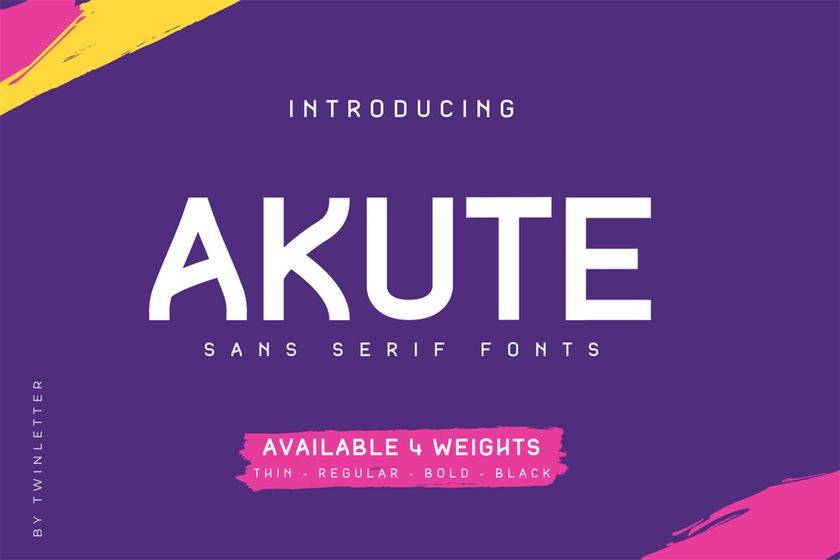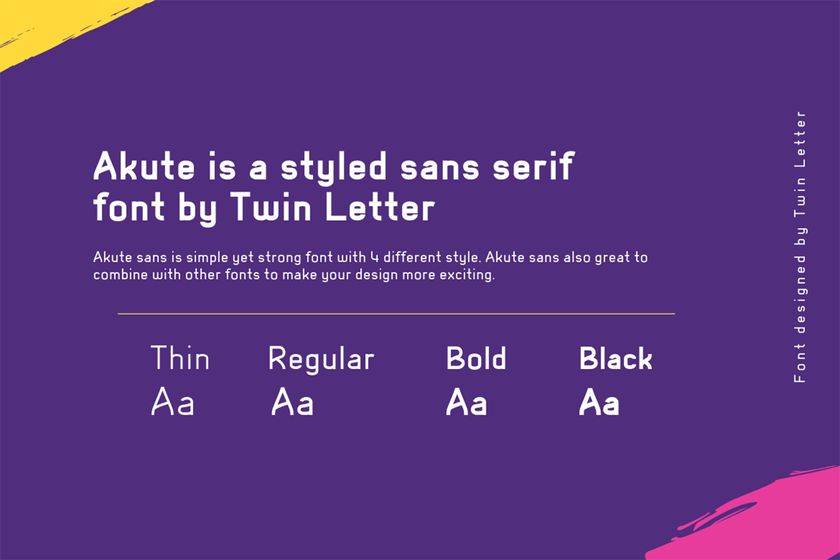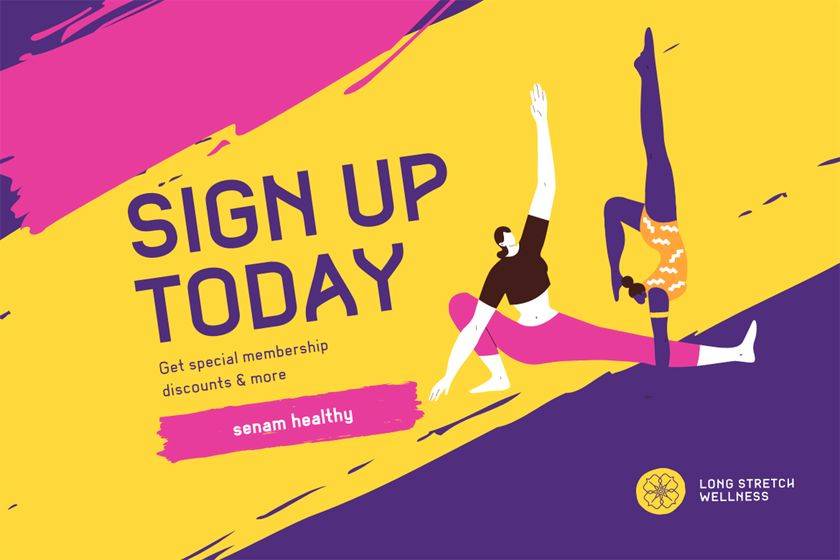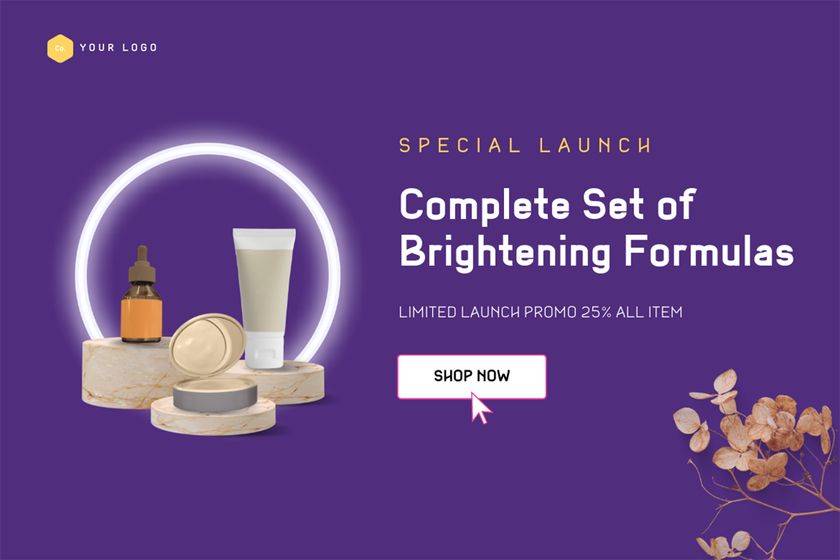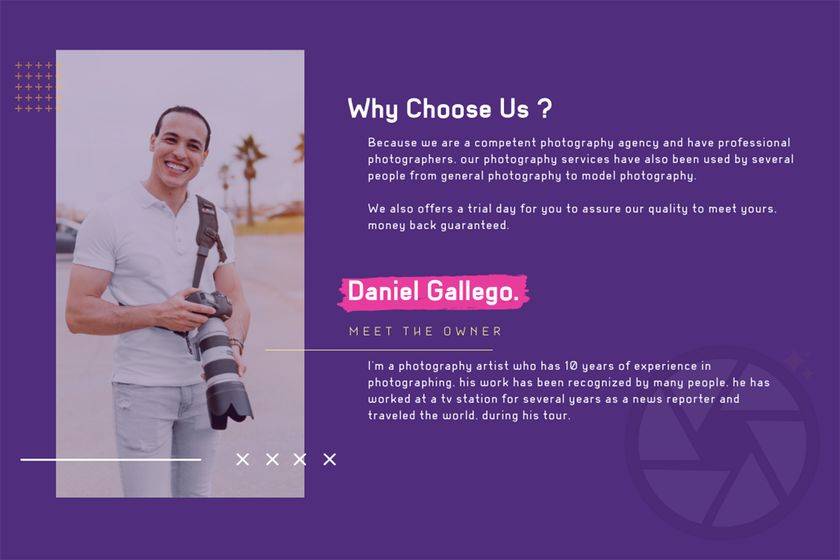
Akute is a unique sans serif font characterized by its slightly condensed letterforms and clean, geometric structure with subtle, playful quirks such as the curved tail on the uppercase Q and the distinctive leg of the R. With medium weight and a balanced x-height, it maintains clear readability while offering a modern yet approachable personality, making it ideal for branding, headlines, and editorial use where a fresh and contemporary feel is desired.
Akute Font
About Akute Font
| Font family | Akute Font |